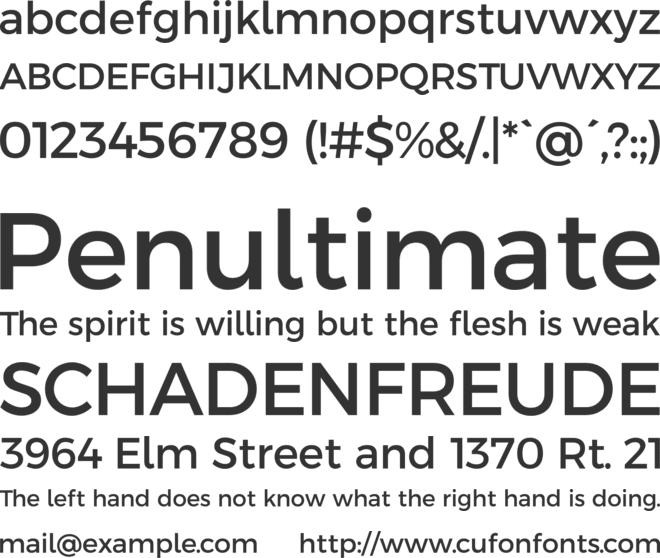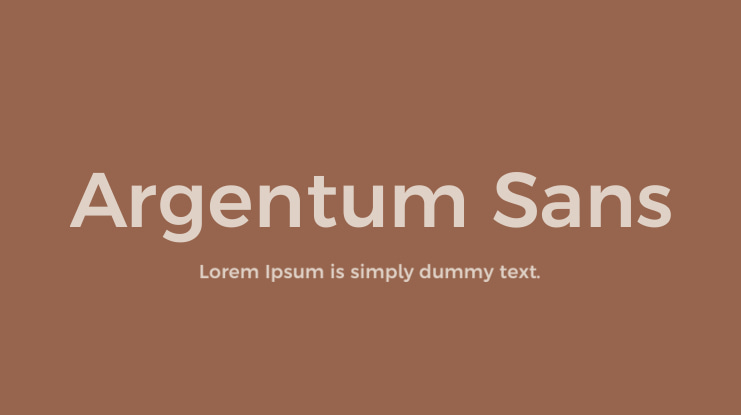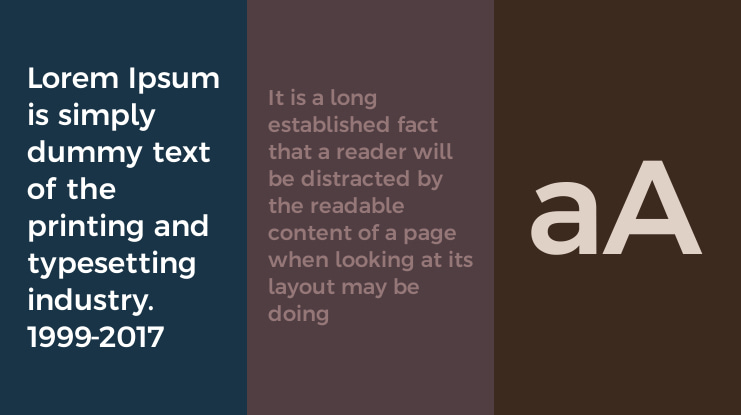
Argentum Sans Font Family
Julieta Ulanovsky
Argentum Sans (Latin for "Silver") is a sans-serif geometric font forked from Montserrat version 5.001.
This project was born following the two weight changes in 2017 on upstream fonts, so we created this font as a response. The first modifications are a lowercase l with a tail from alternate glyphs, a descending 'J', and fixed some glyphs.